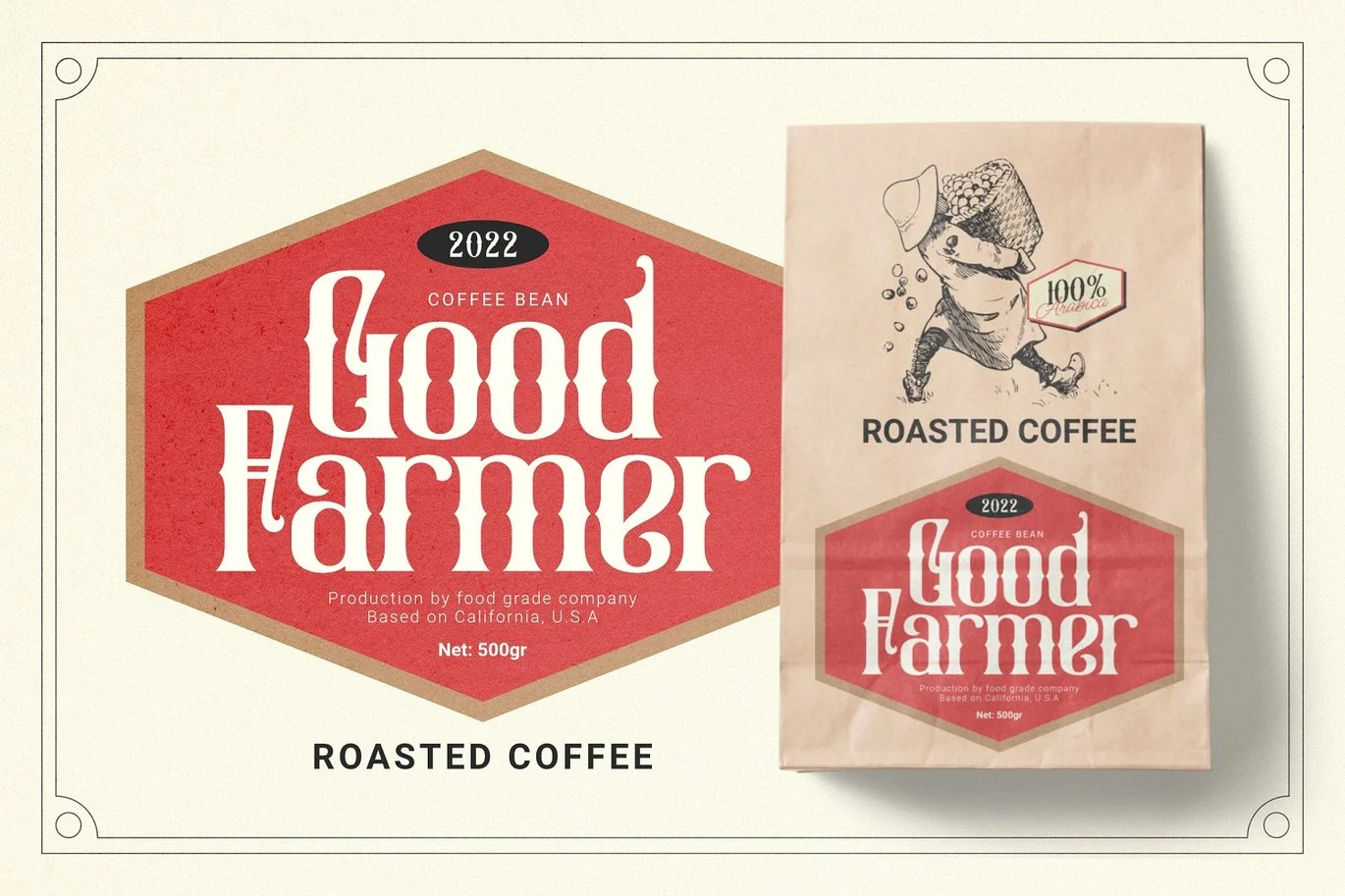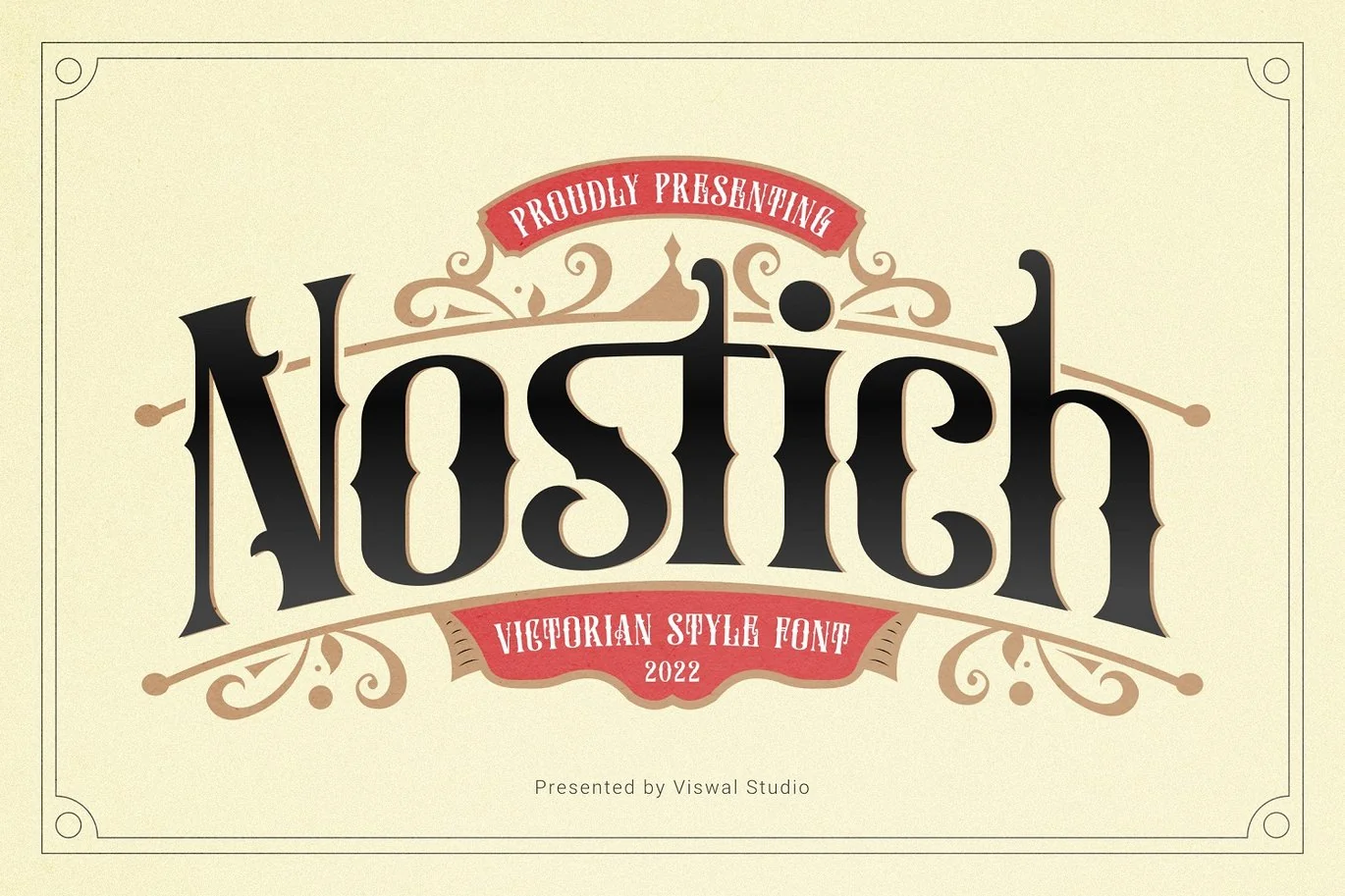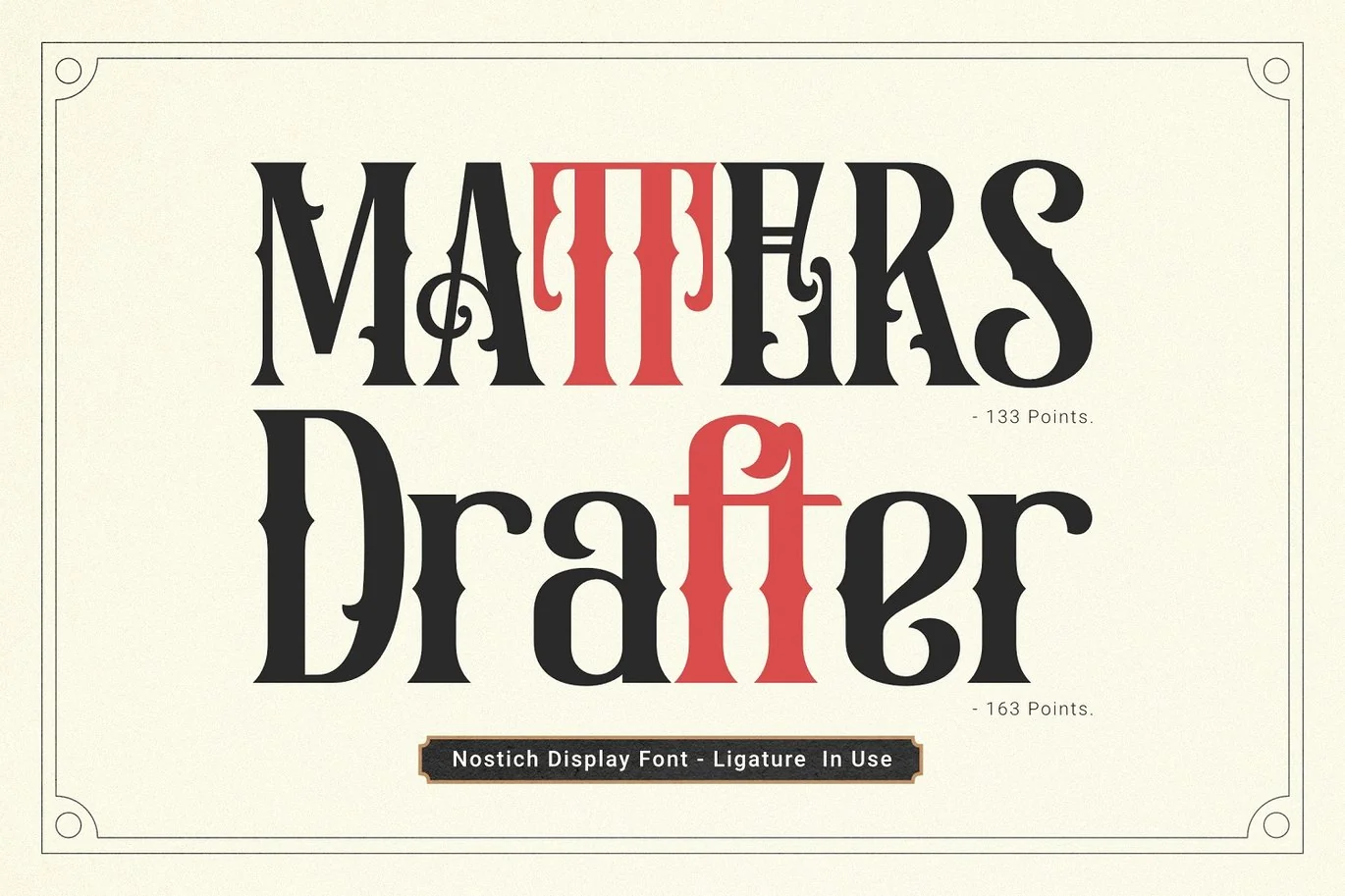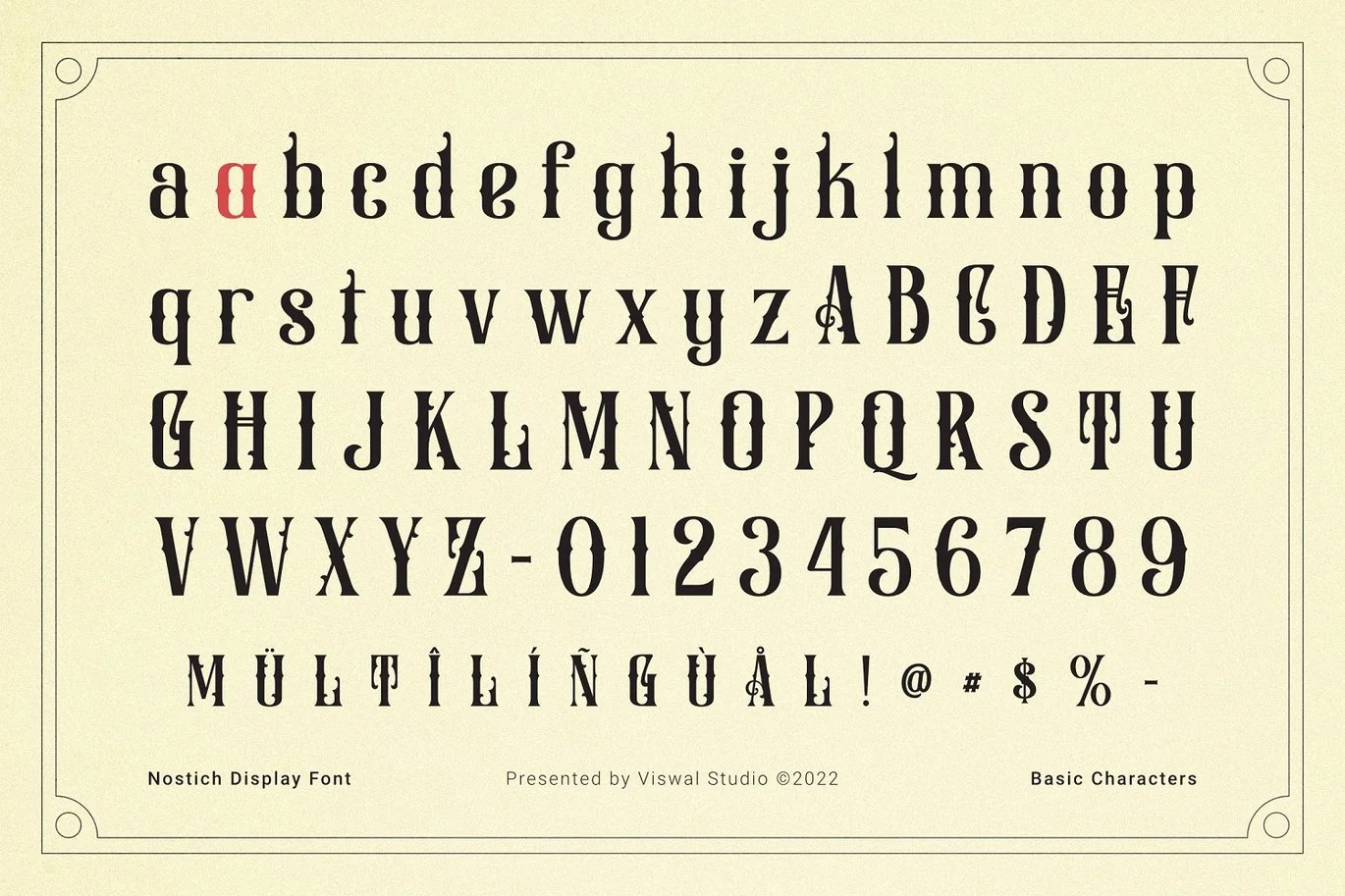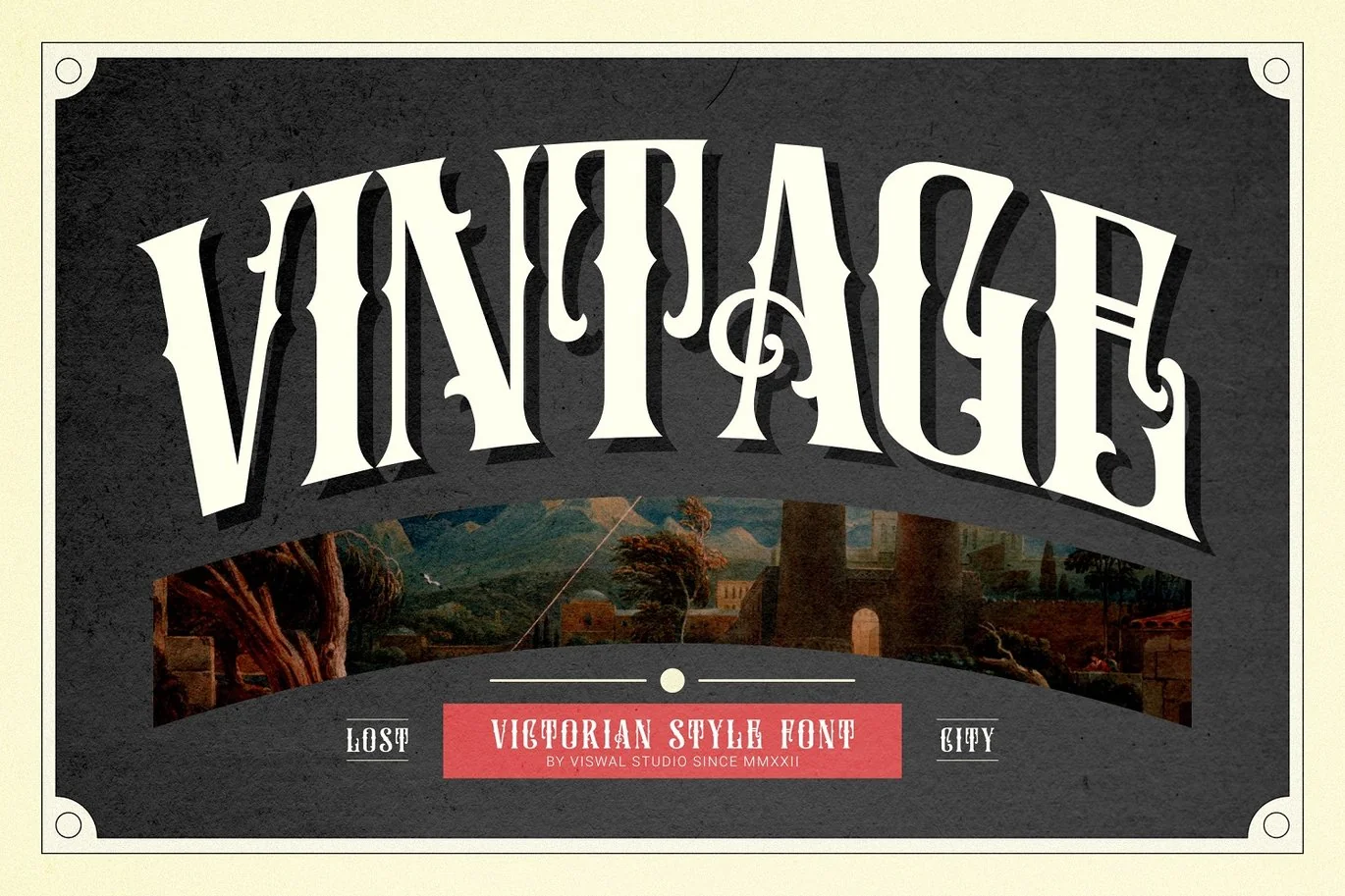
Nostich – Vintage Font
Presenting Nostich – Vintage Font is suitable for badge, labels, logo, branding, magazine, poster and etc. Our fonts have Uppercase & Lowercase, Numeral & Punctuation, Multilingual support and Opentype Features. For Amazing designs you can mix with other fonts as a complement.